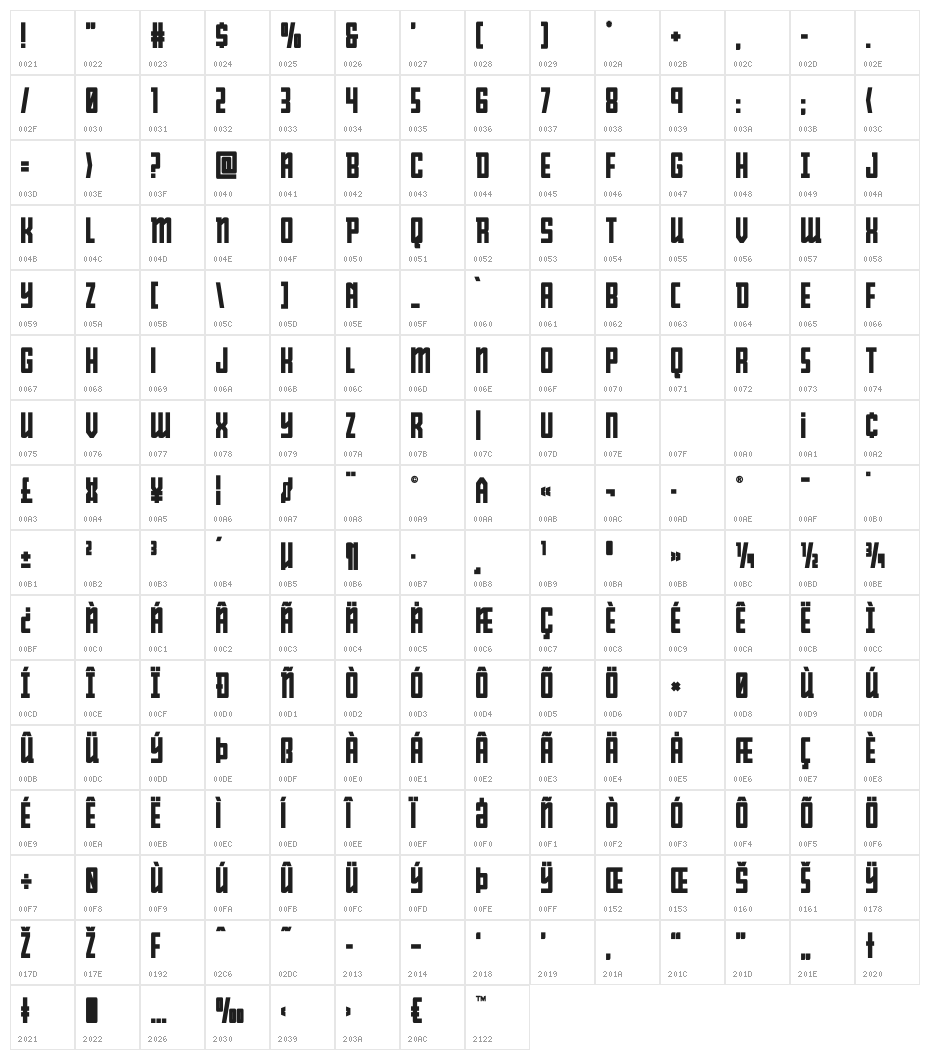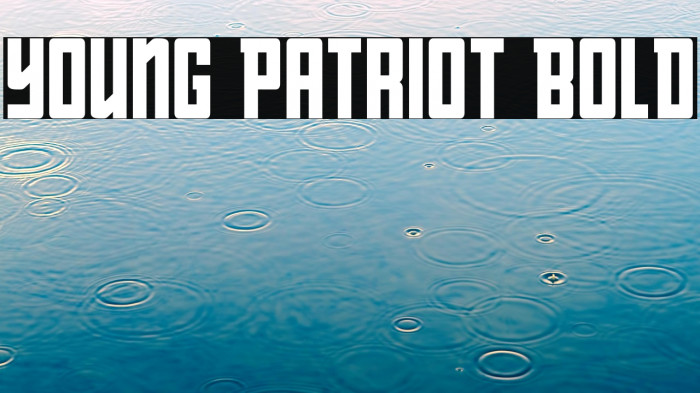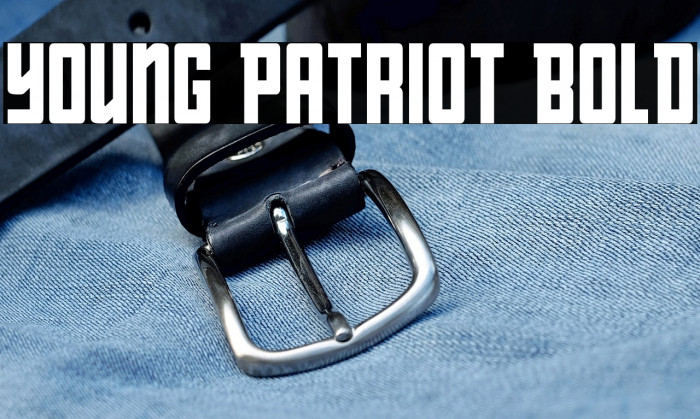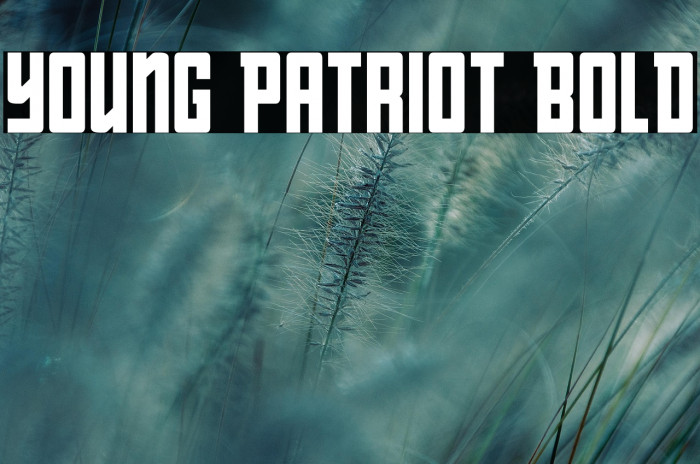
Young Patriot Bold Font
Young Patriot Bold Description
This font features a bold and robust design with strong geometric shapes and a commanding presence. The characters are uniformly thick, providing a sense of stability and strength. The uppercase letters are particularly striking, with sharp angles and a blocky appearance that conveys a sense of authority and modernity. The numerals and special characters maintain this bold aesthetic, ensuring consistency across all glyphs. The font's design is ideal for making a strong visual impact, whether in print or digital media.